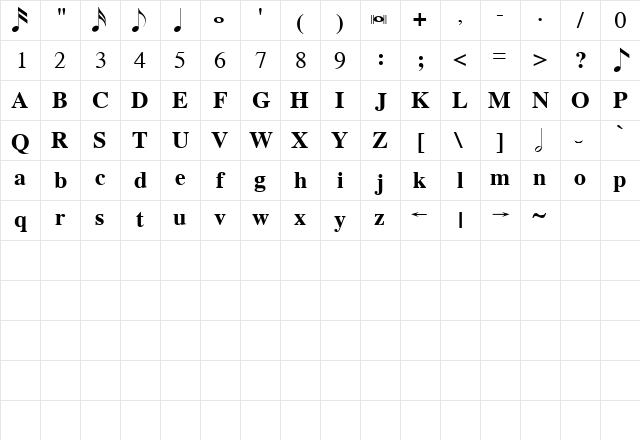
Tempo Indications Lite Regular Free Font
Tempo Indications Lite Regular
Copyright: This allows you to put in both metronome markings and tempo indications within the one font  Lite version, no tuplet markings.
Design Context for Tempo Indications Lite
Tempo Indications Lite is a composed and adaptable typeface that performs quietly and consistently across a wide range of design contexts.